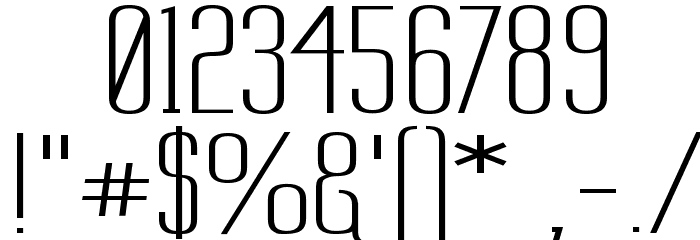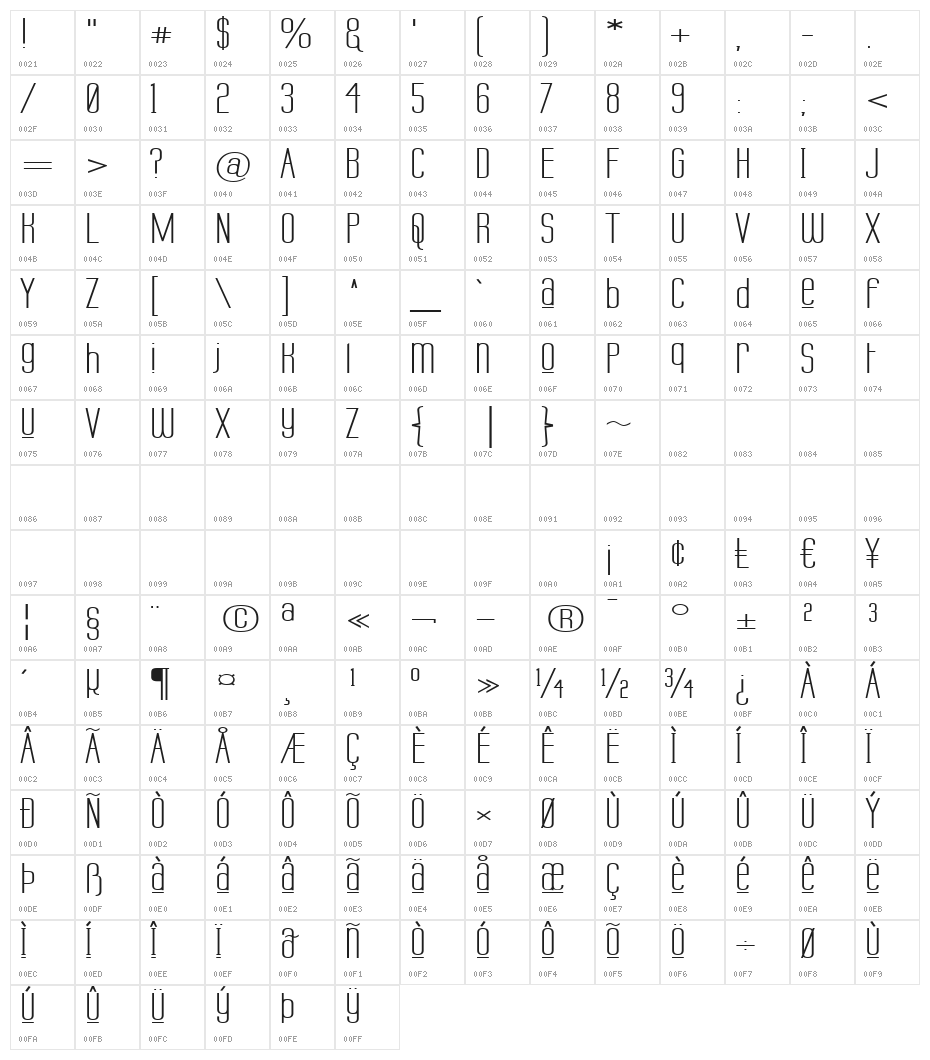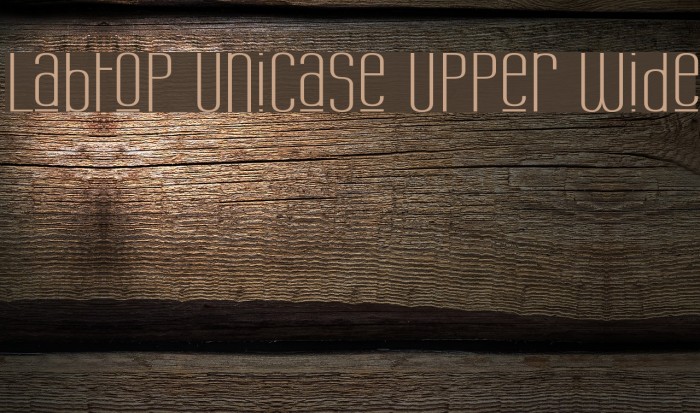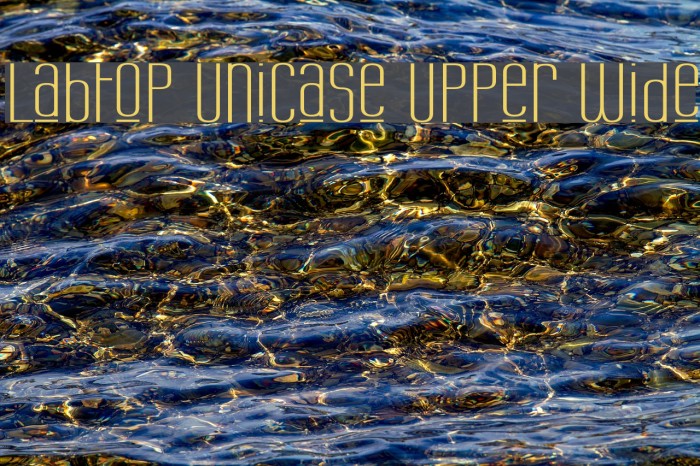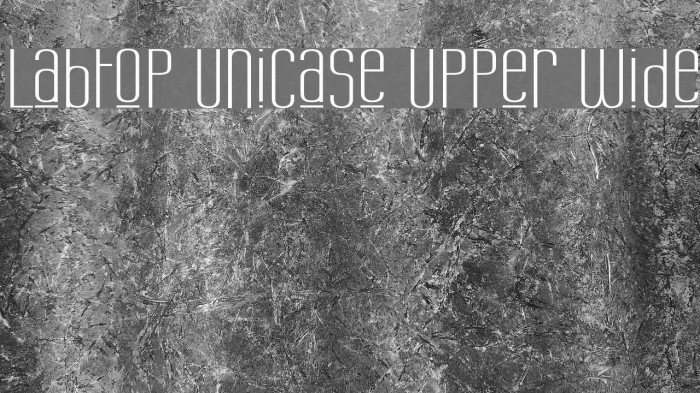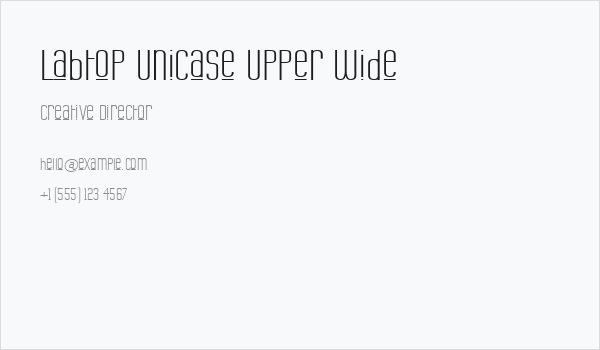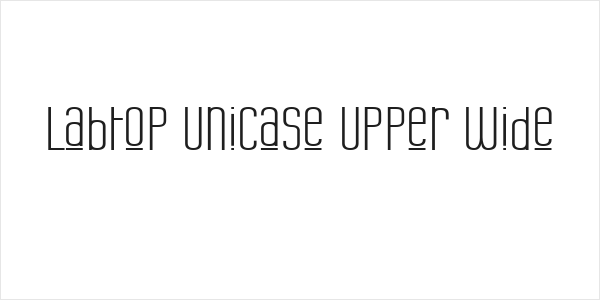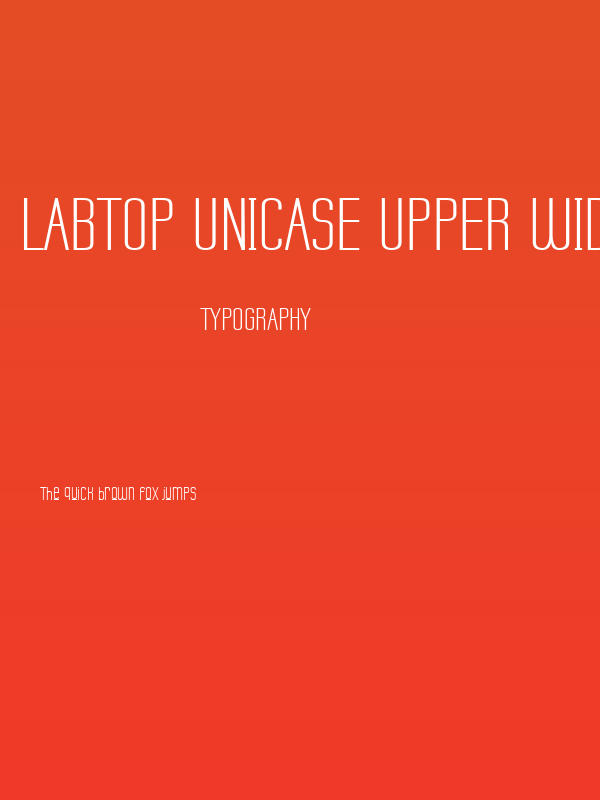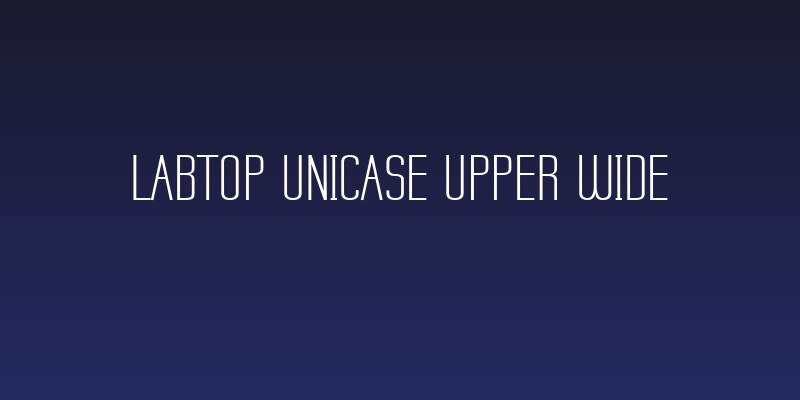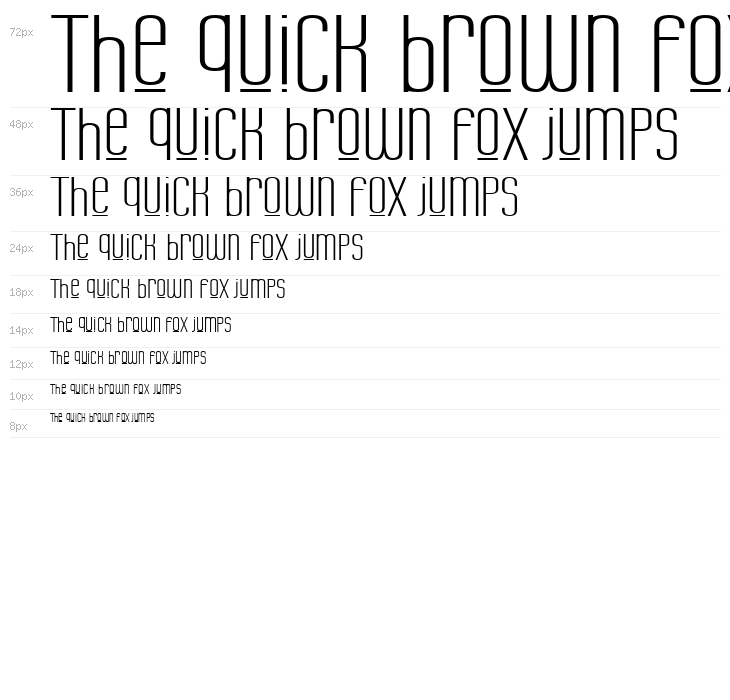
Labtop Unicase Upper Wide Font
Labtop Unicase Upper Wide Description
This font features a distinctive unicase design where uppercase and lowercase letters share similar heights, creating a uniform appearance. The characters are elongated and narrow, giving a tall and elegant look. The strokes are consistent in width, contributing to a clean and modern aesthetic. The font includes a full set of numerals and a variety of special characters, making it versatile for different uses. Its geometric structure and minimalistic style make it suitable for contemporary design projects.
| Proposed Projects | Ideal for branding, editorial design, and modern web design projects where a sleek and uniform look is desired. |